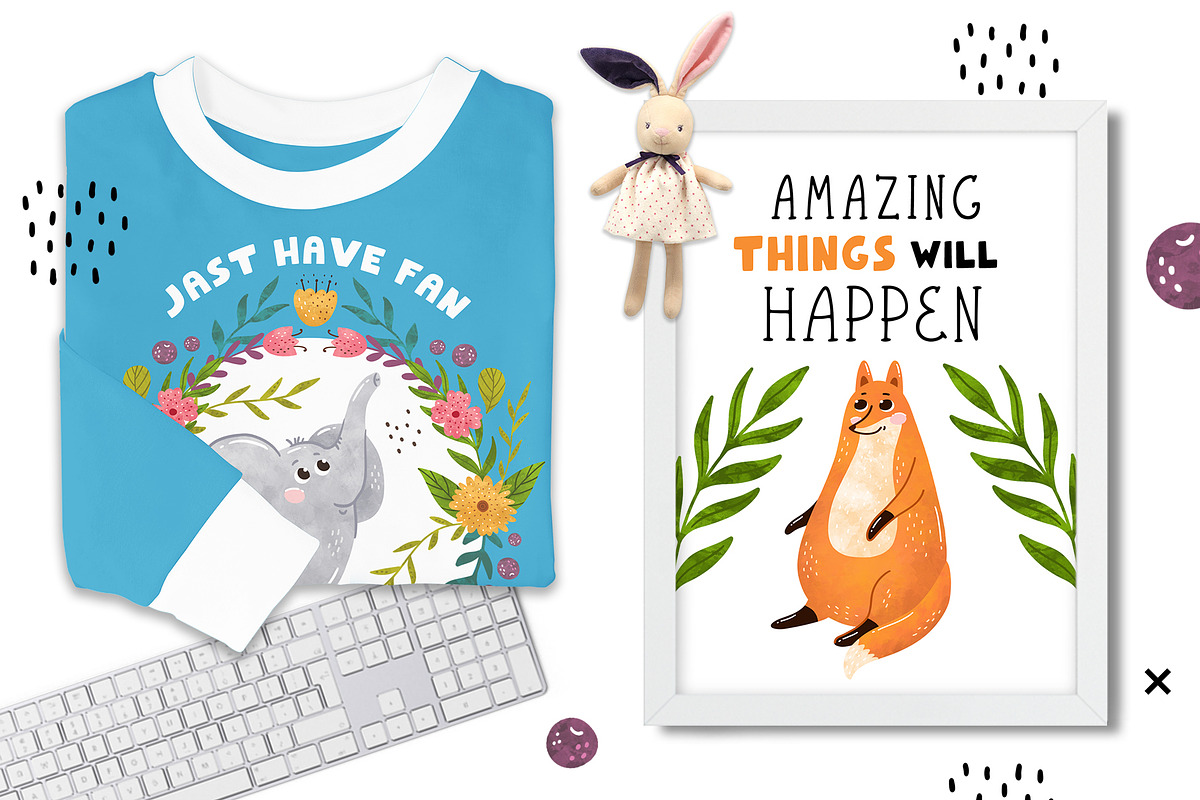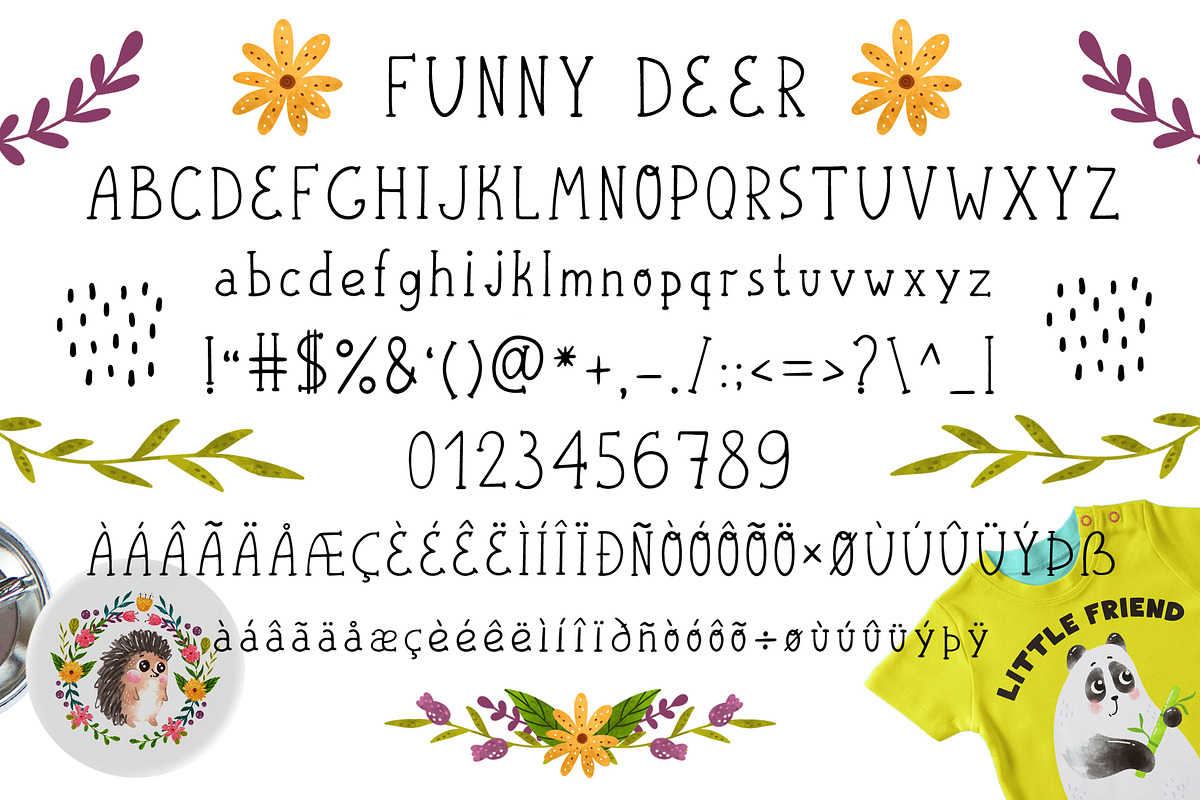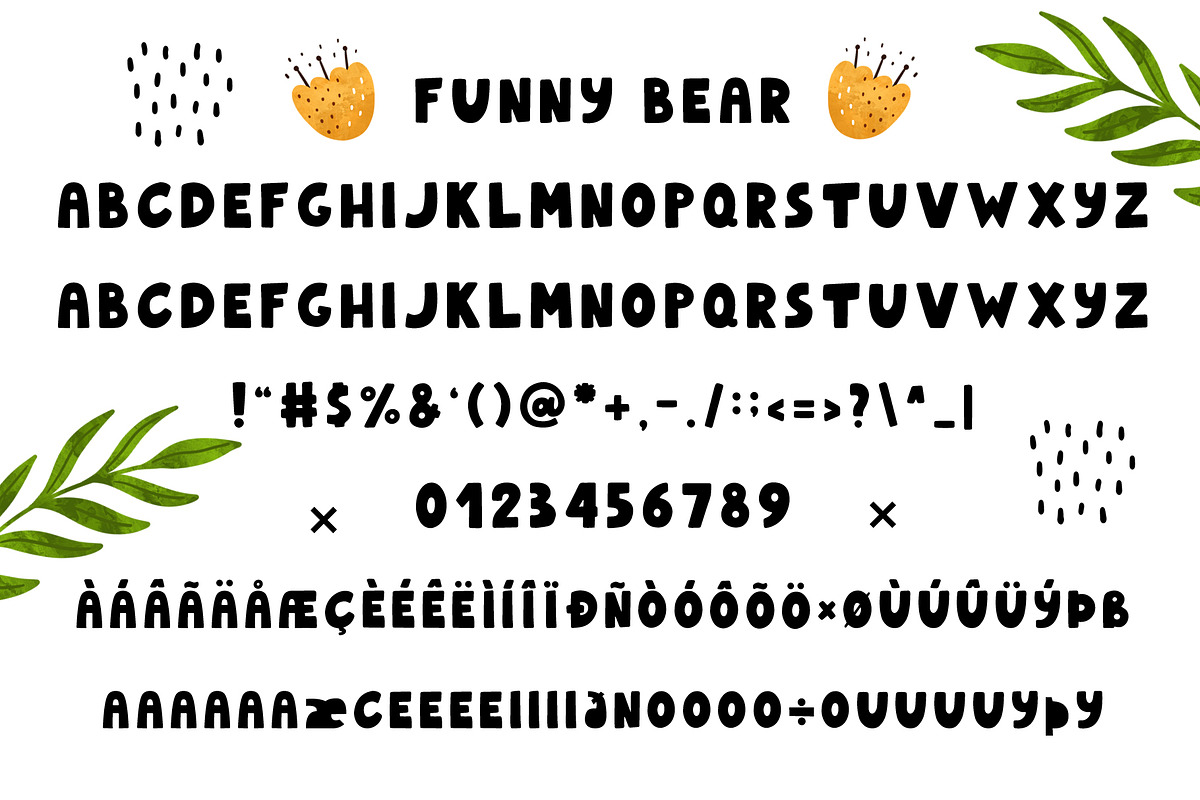
Funnybear & Funnydeer - Duo font
I hasten to introduce you to the amazing and cute font duo - Funnybear and Funnydeer!
These cute fonts are made by hand and with great love especially for your loved ones! Create your own unique design of cards, posters, wishes, invitations, interior decorations, textiles, fabric, brochures, gift wrapping, badges and more!
Together with the font I have prepared for you portraits of funny animals! They are perfectly suited to the design of children's products!
Also in this beautiful set I included plant elements and bouquets that will serve as a great addition to the design of cards, invitations and packaging!
These fonts are multilingual! Cyrillic is also included!